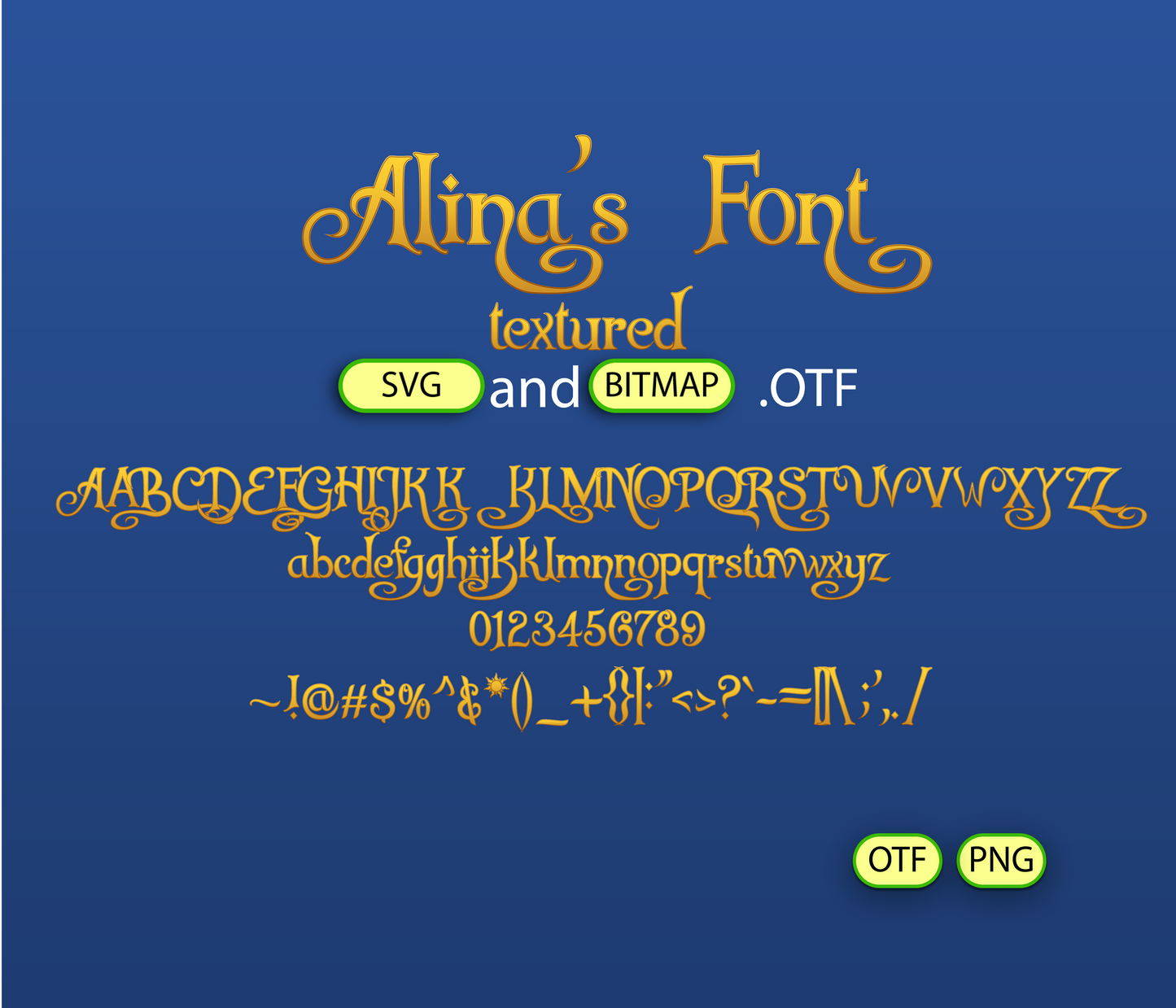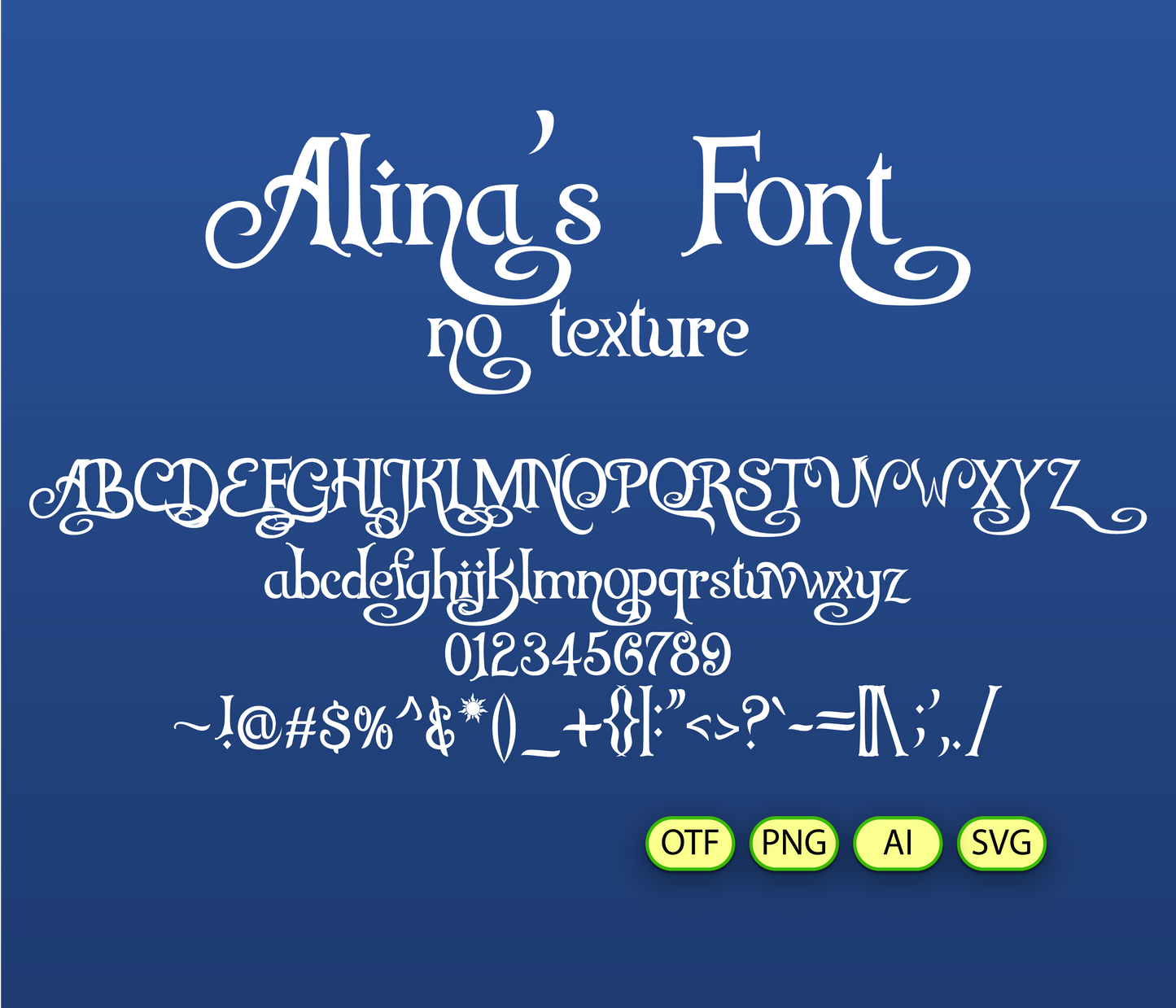
Enchanted Tower Fairy Tale Font Textured
Enchanted Tower Font Whimsical Fairy Tale Adventures
Step into the magical world of long-haired princesses and tower-bound adventures with our Enchanted Tower font, capturing the essence of fairy tale romance and adventurous spirit. Perfect for children's parties, fairy tale themed events, storybook designers, and creative professionals, this font brings the whimsical, magical energy of classic princess tales to your projects. Create enchanting invitations, fairy tale merchandise, or digital content with the flowing, romantic charm of tower-bound adventures and magical hair.
Our Enchanted Tower font features flowing, organic curves and playful characters reflecting the whimsical yet elegant aesthetic of fairy tale adventures. The letterforms cascade like golden locks, with decorative flourishes that evoke braided hair and magical vines.